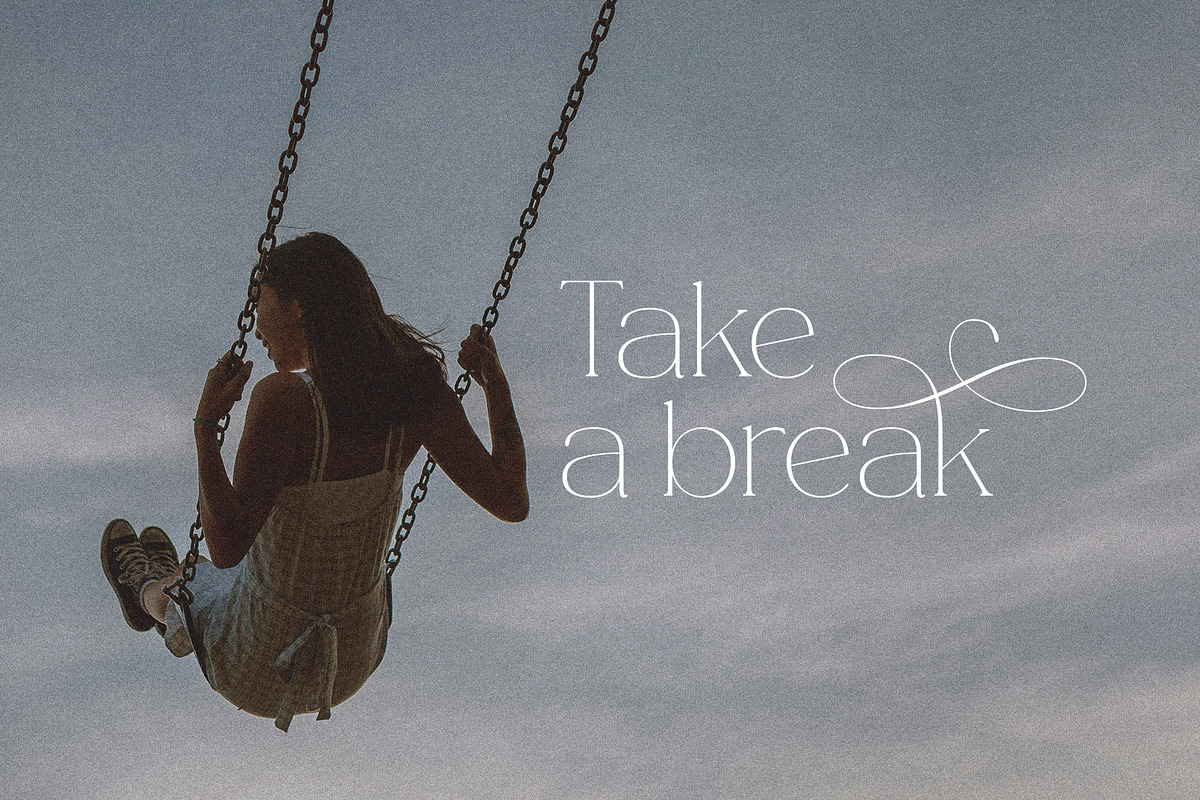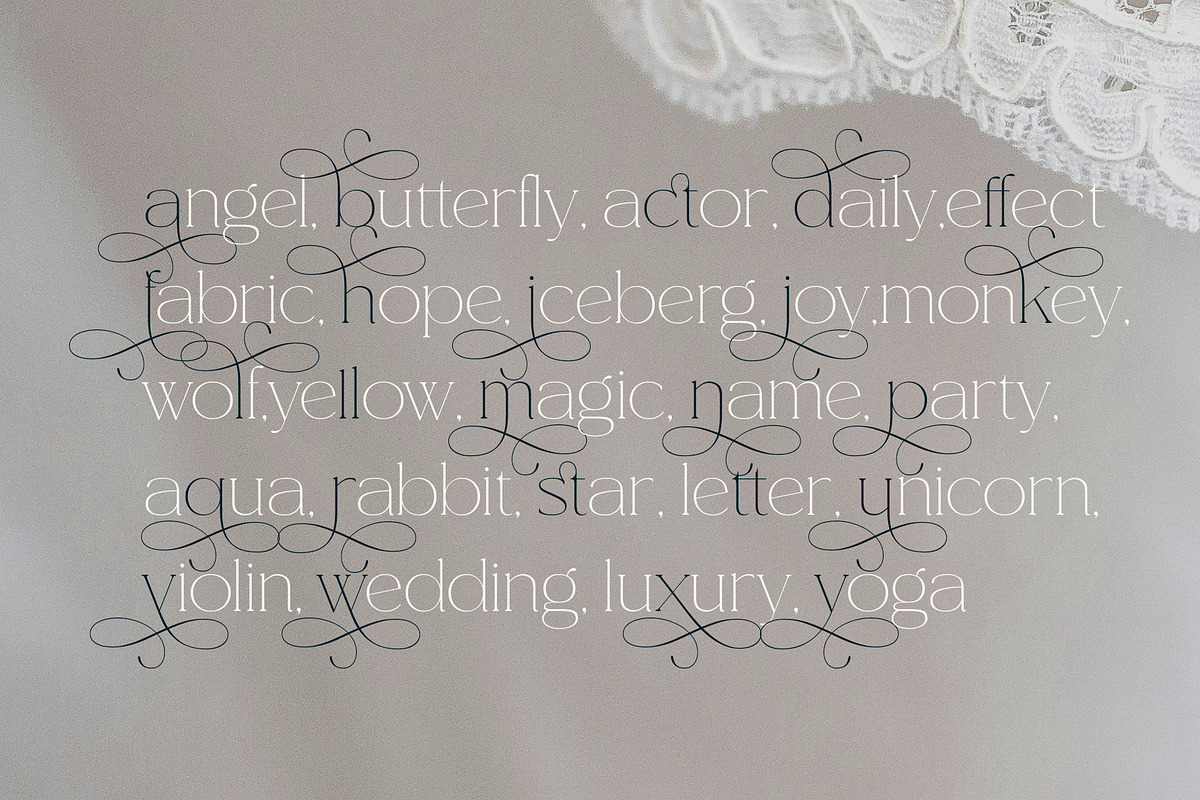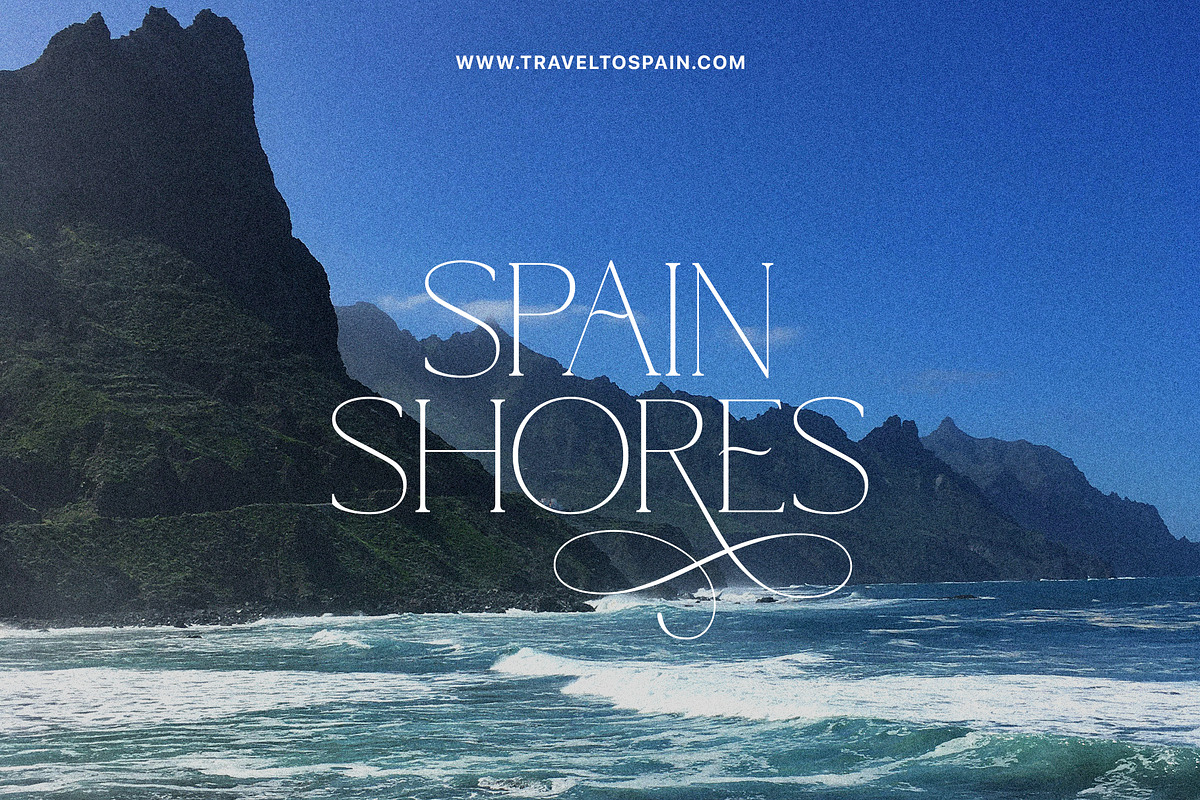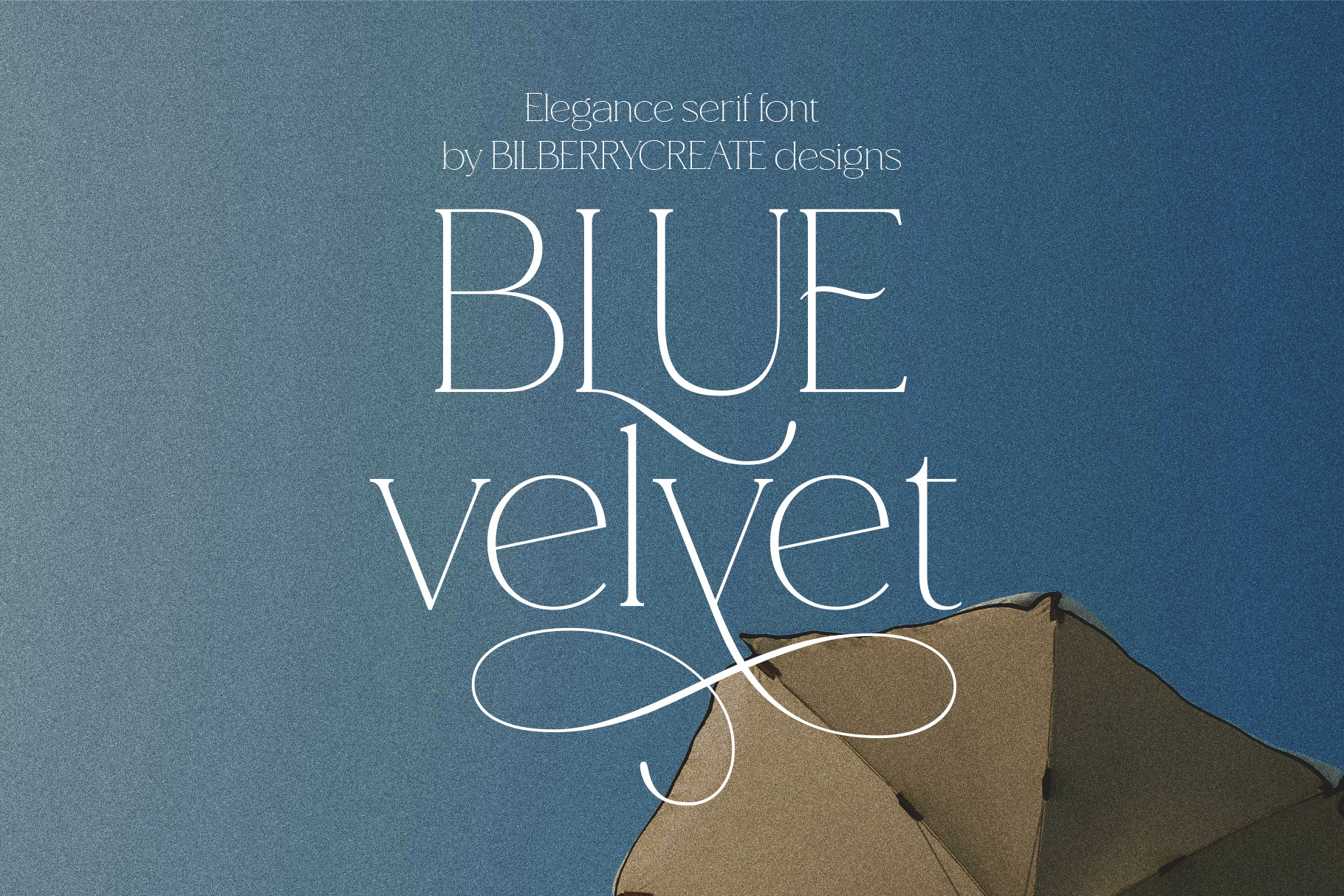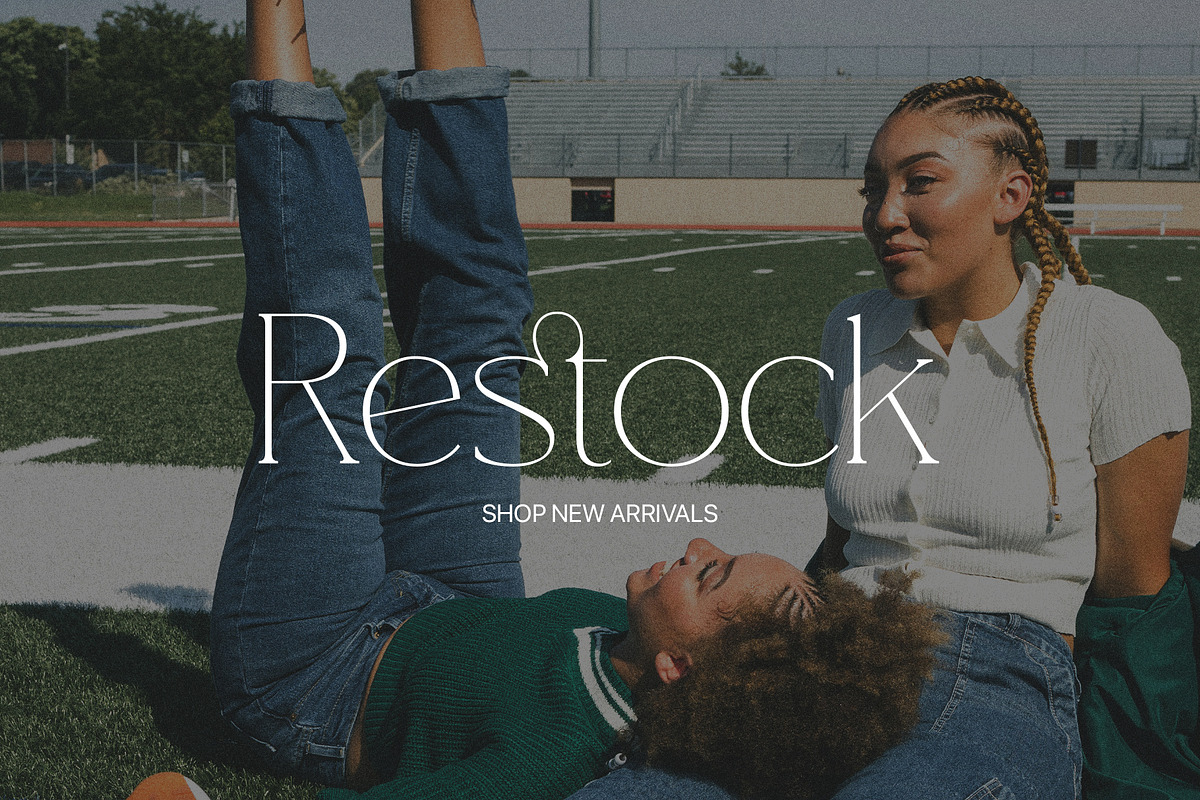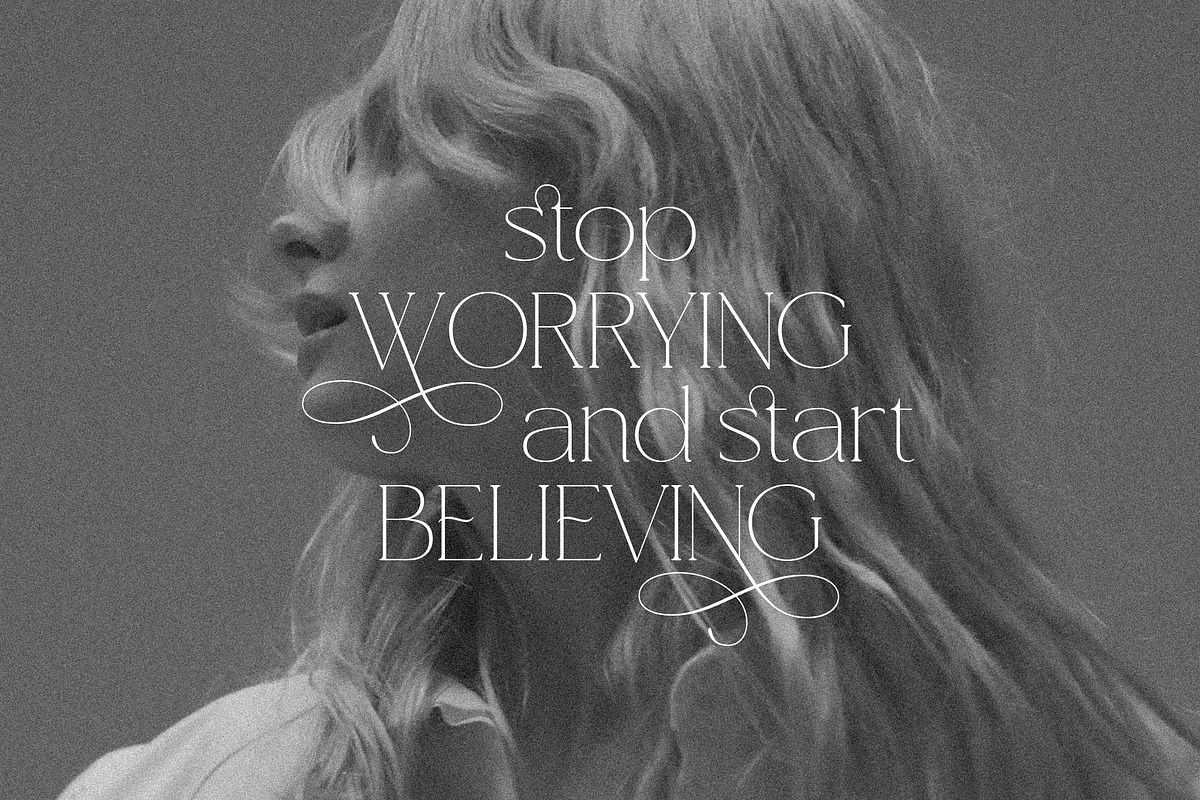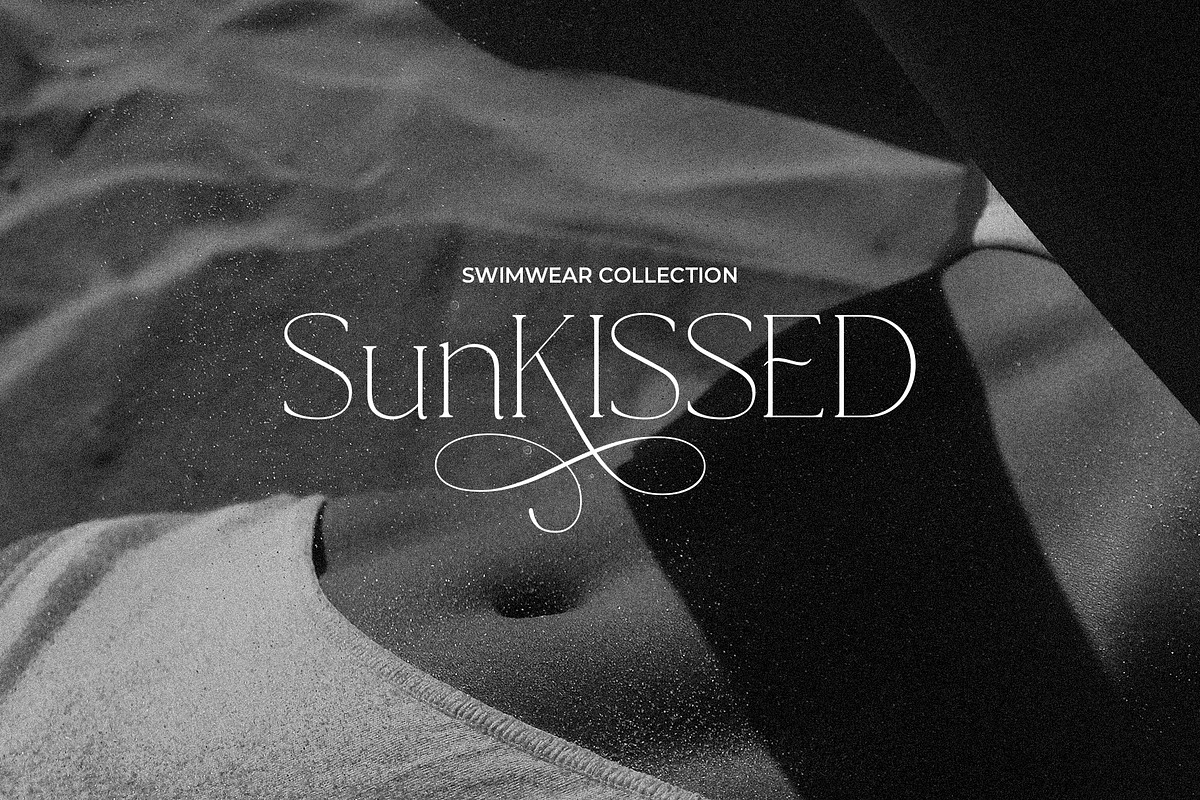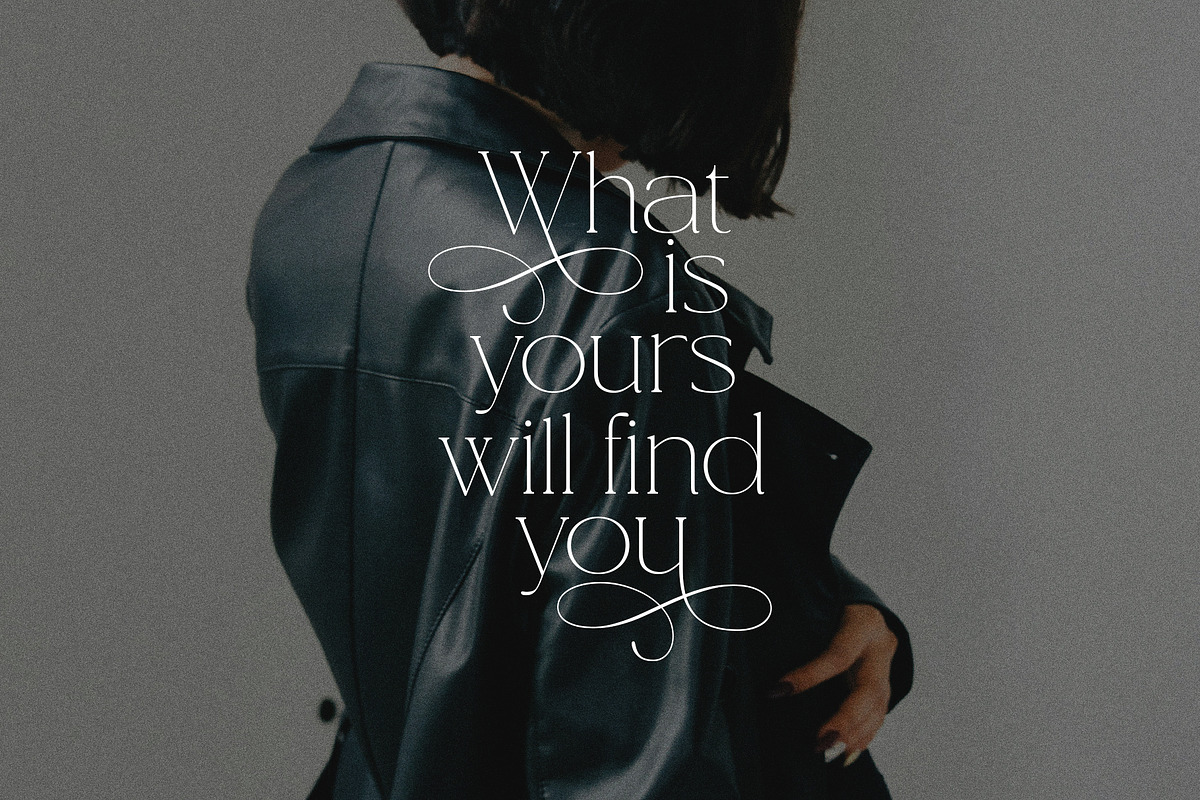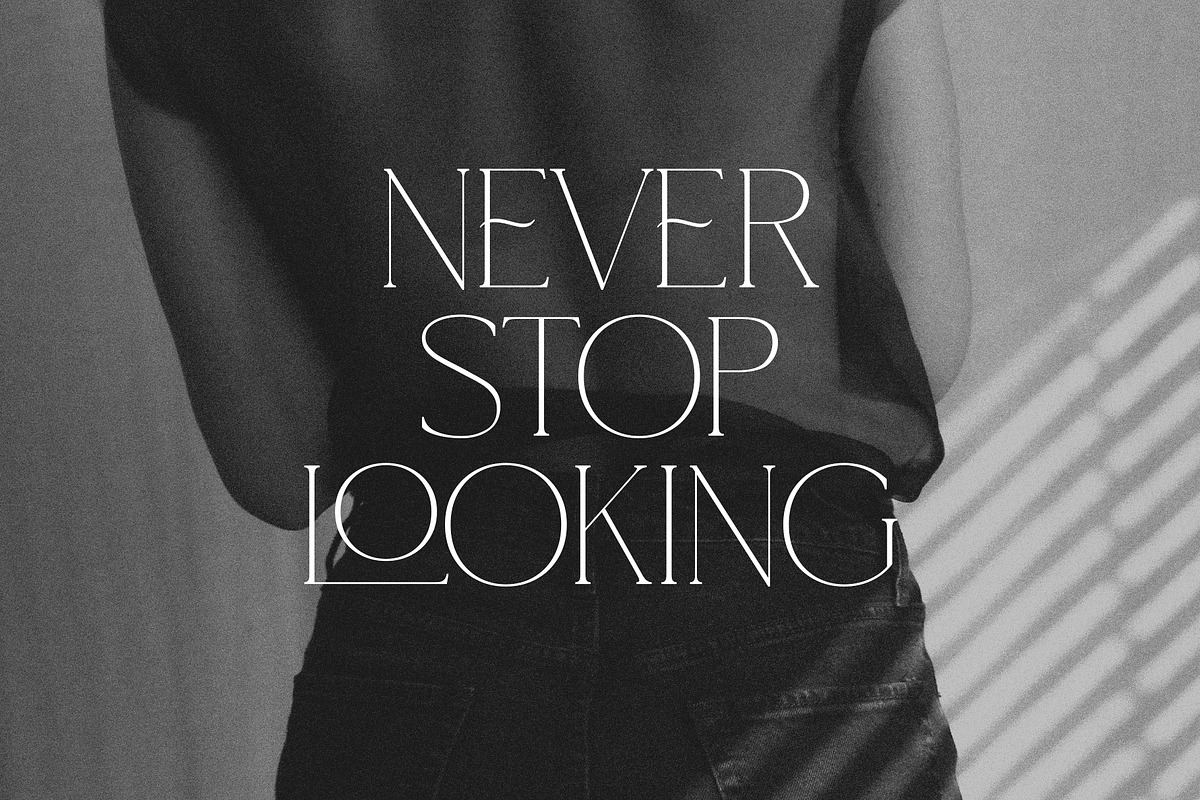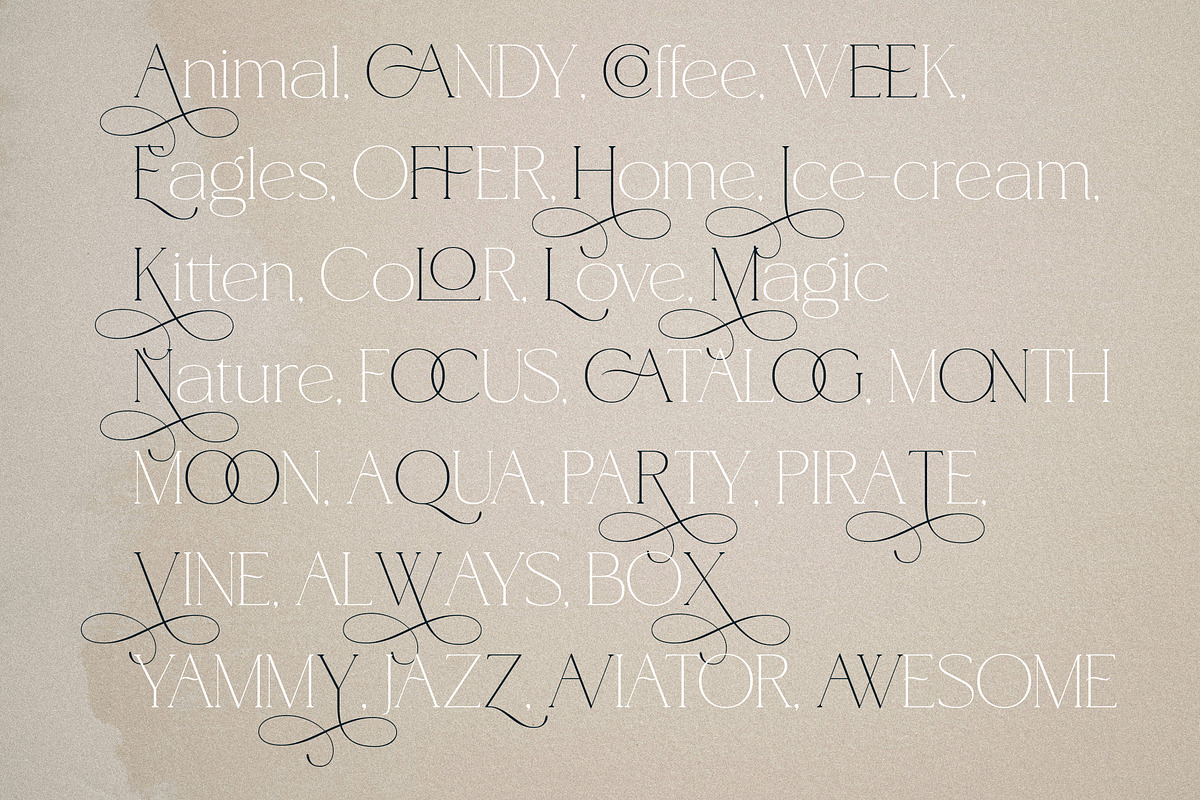
Blue Velvet - elegance serif font
Blue Velvet - elegance serif font!
This is a perfect font for any project. Be sure to click on the image to see all elements. This product was created to help you make your digital images even more beautiful and unique.
This pack can be used to create anything as you wish, logos invitation cards, wedding cards, birthday cards, home decor, packaging holiday gifts, party decorations, print on fabrics and so much more.